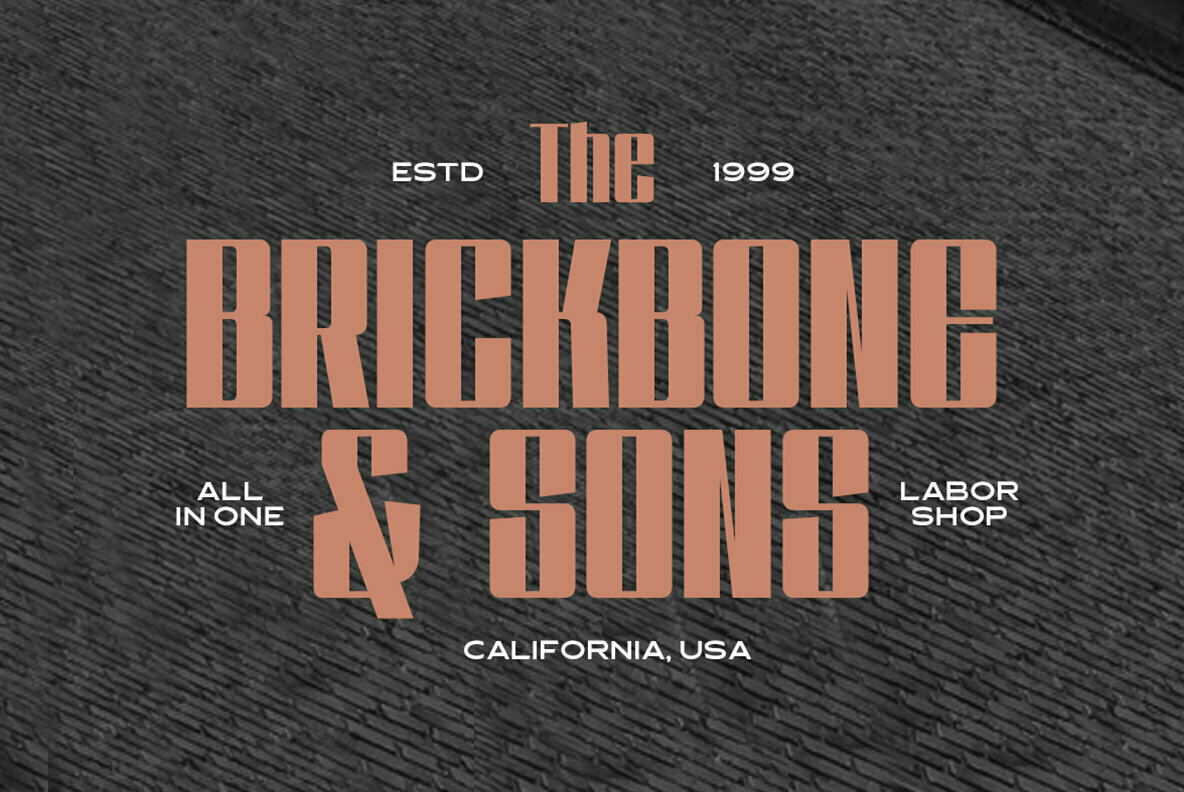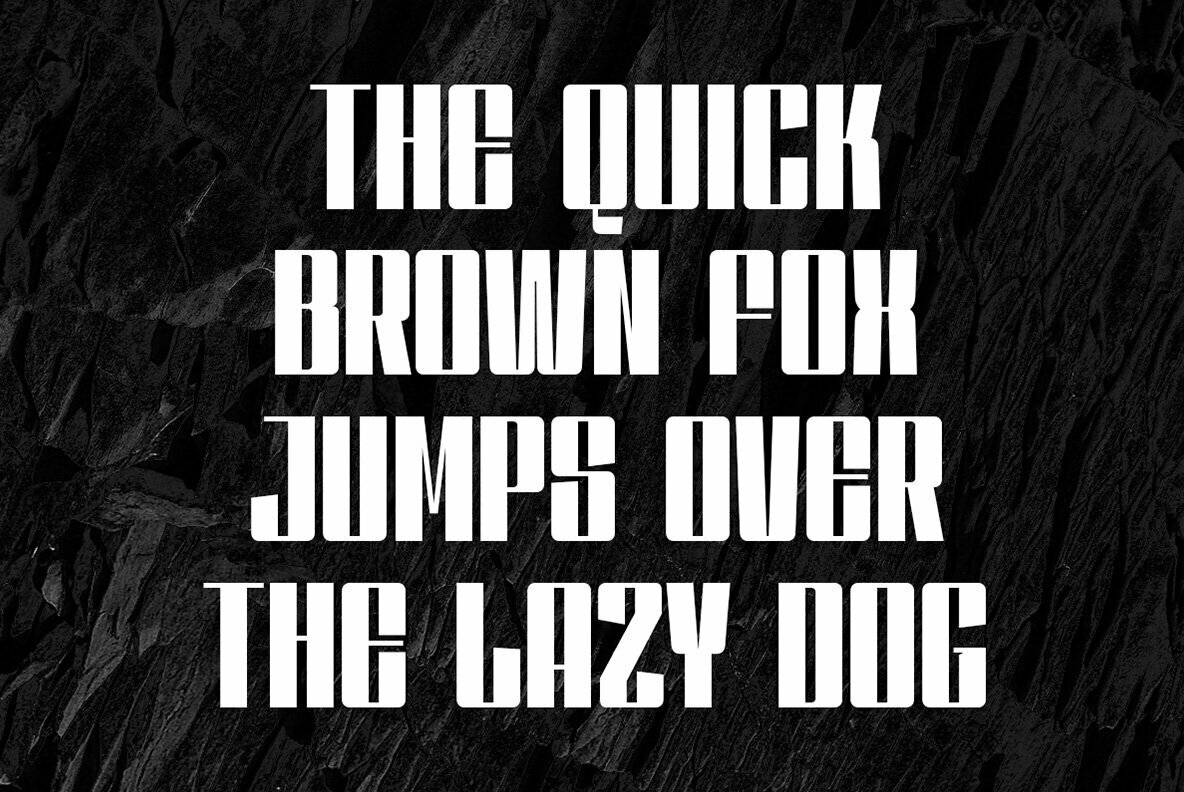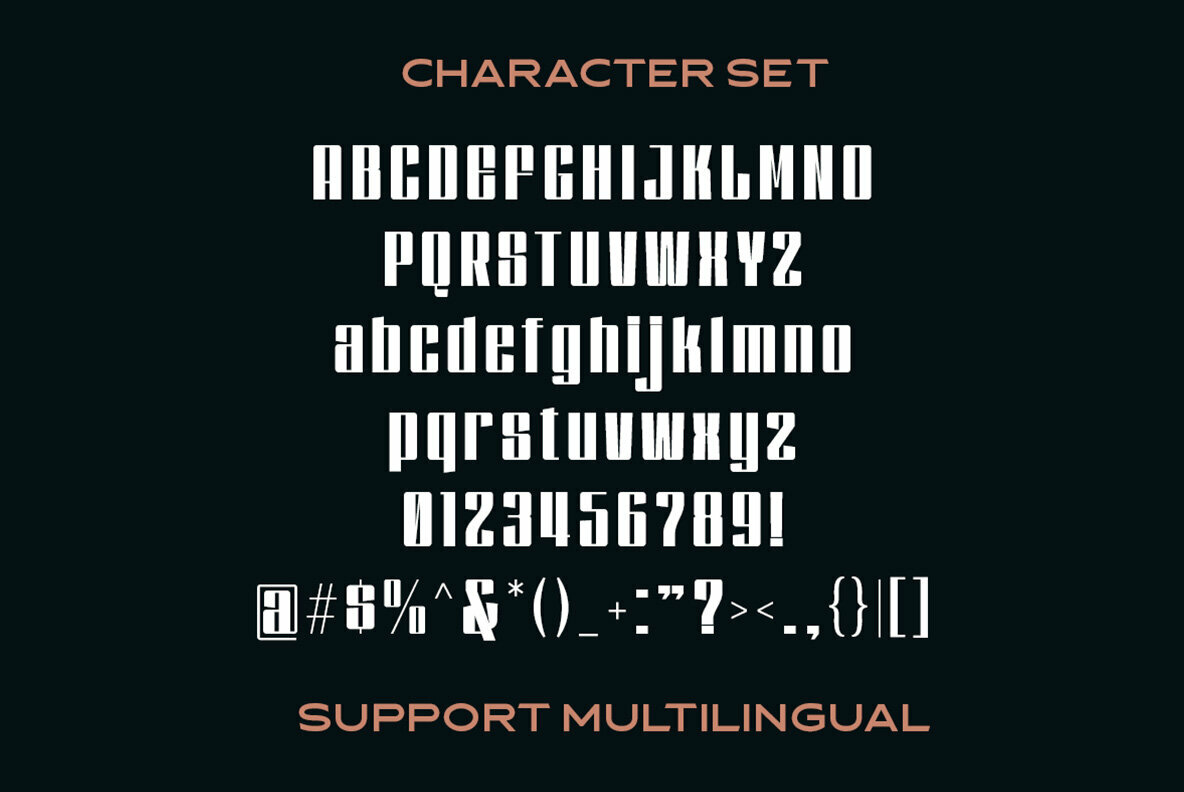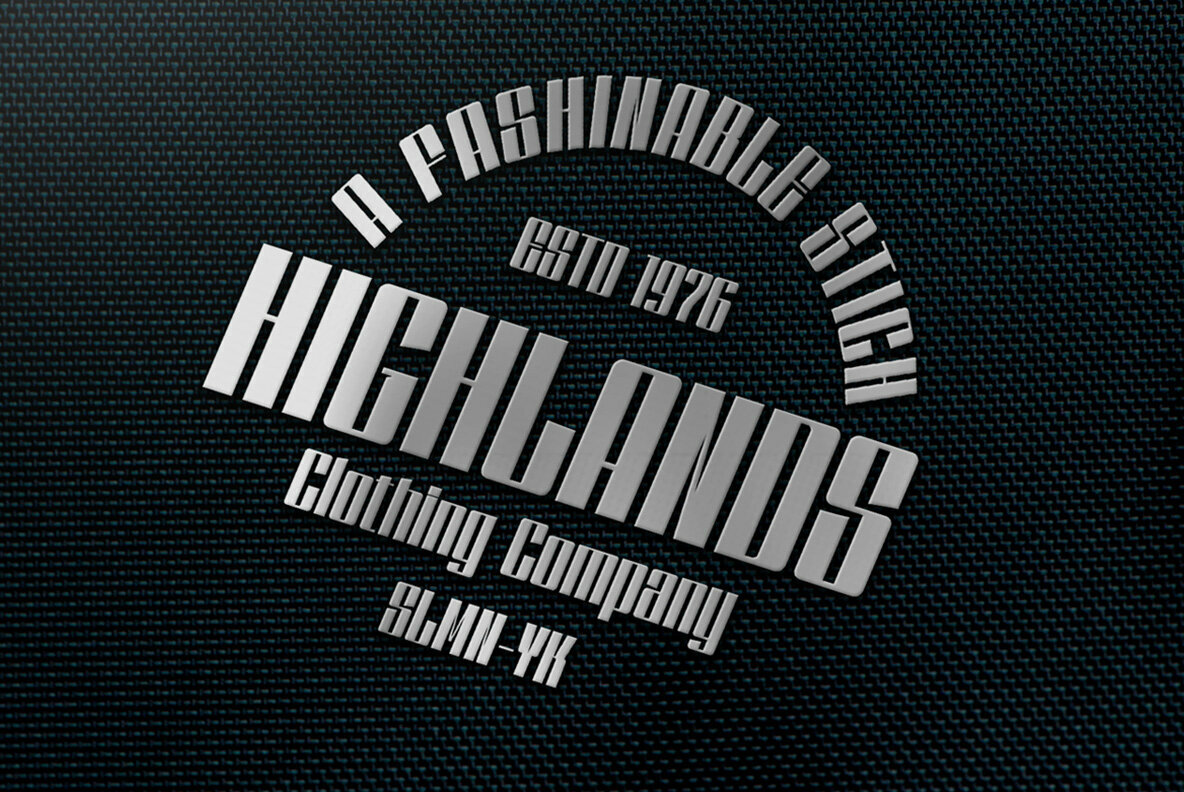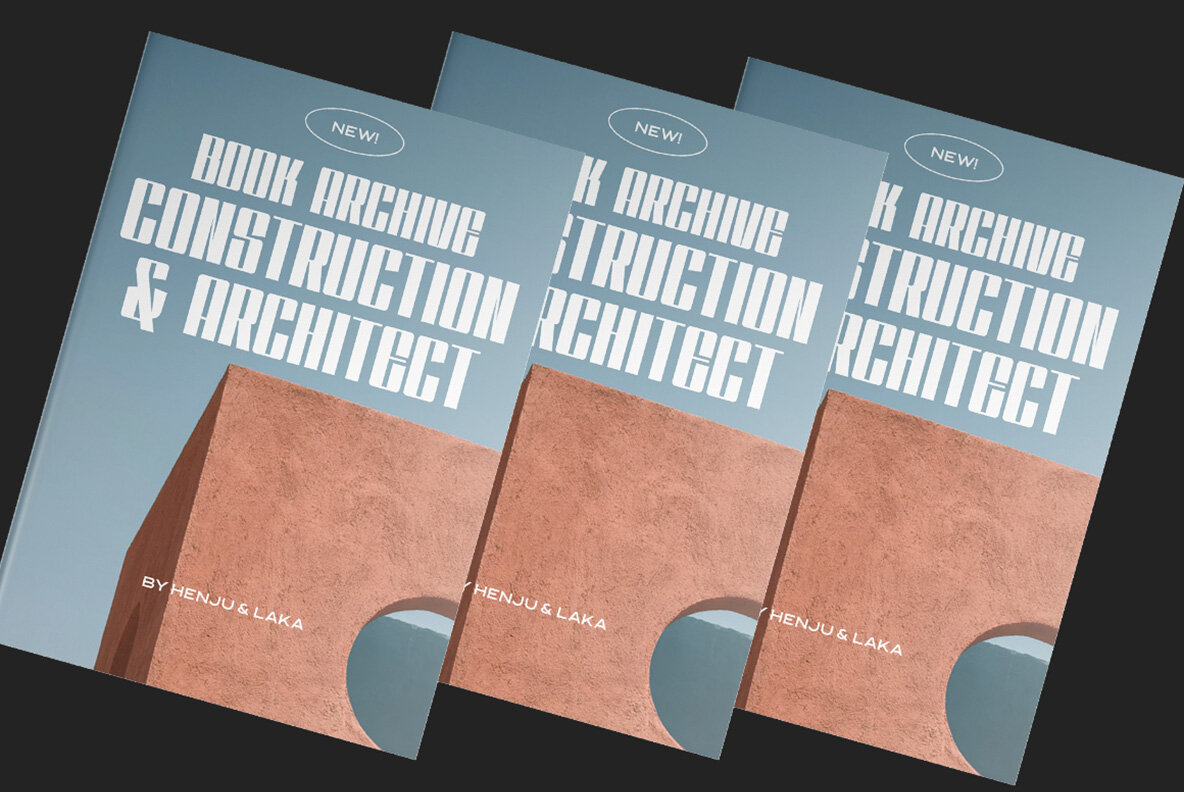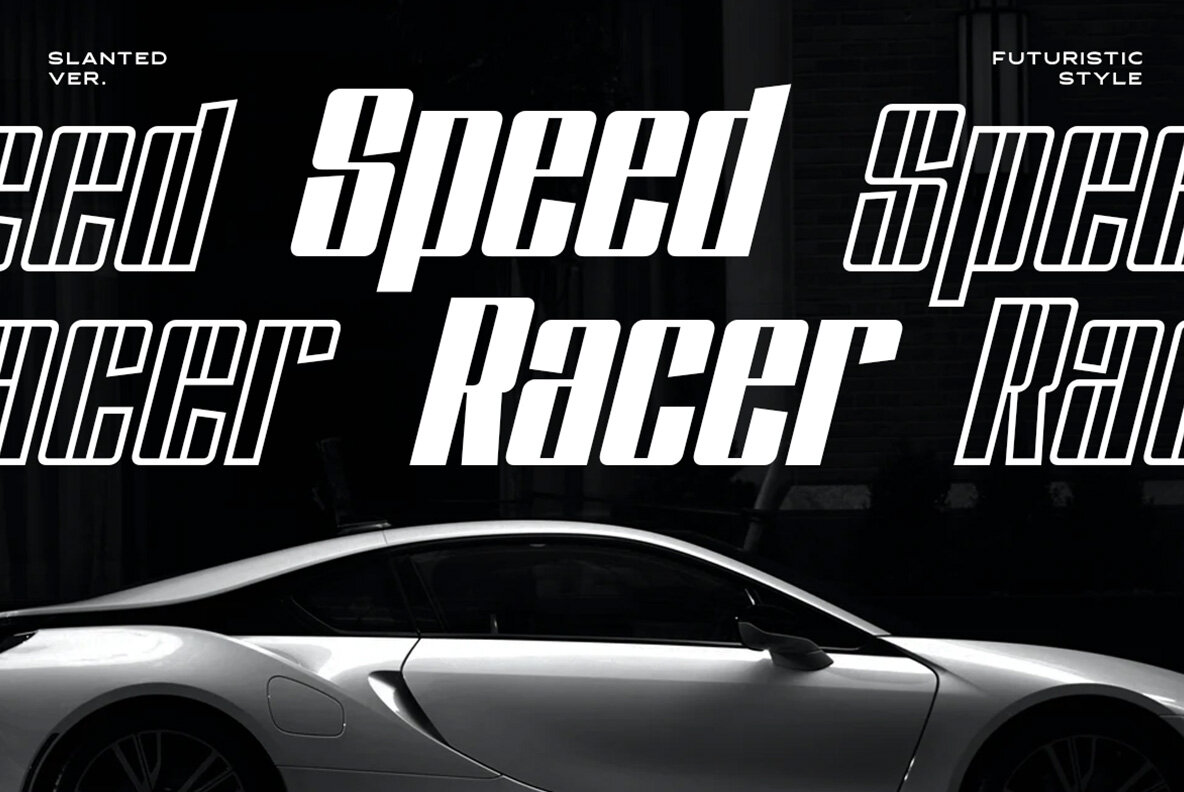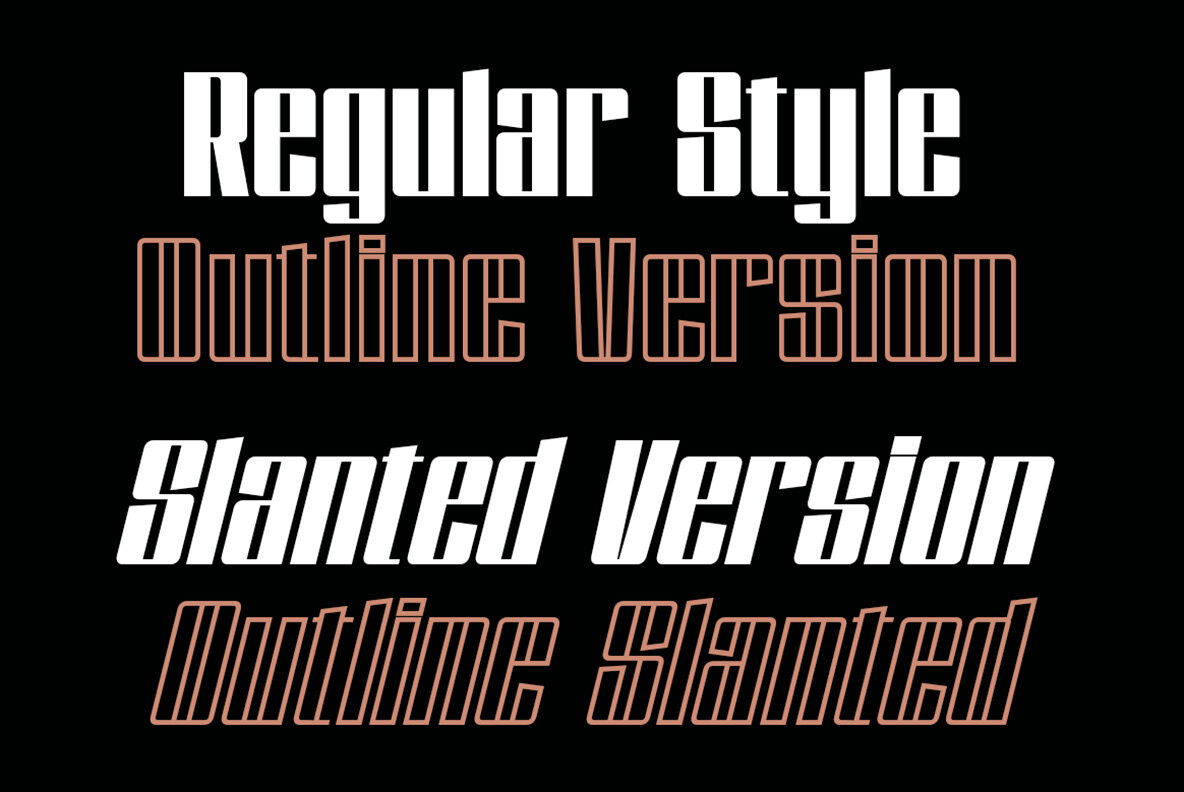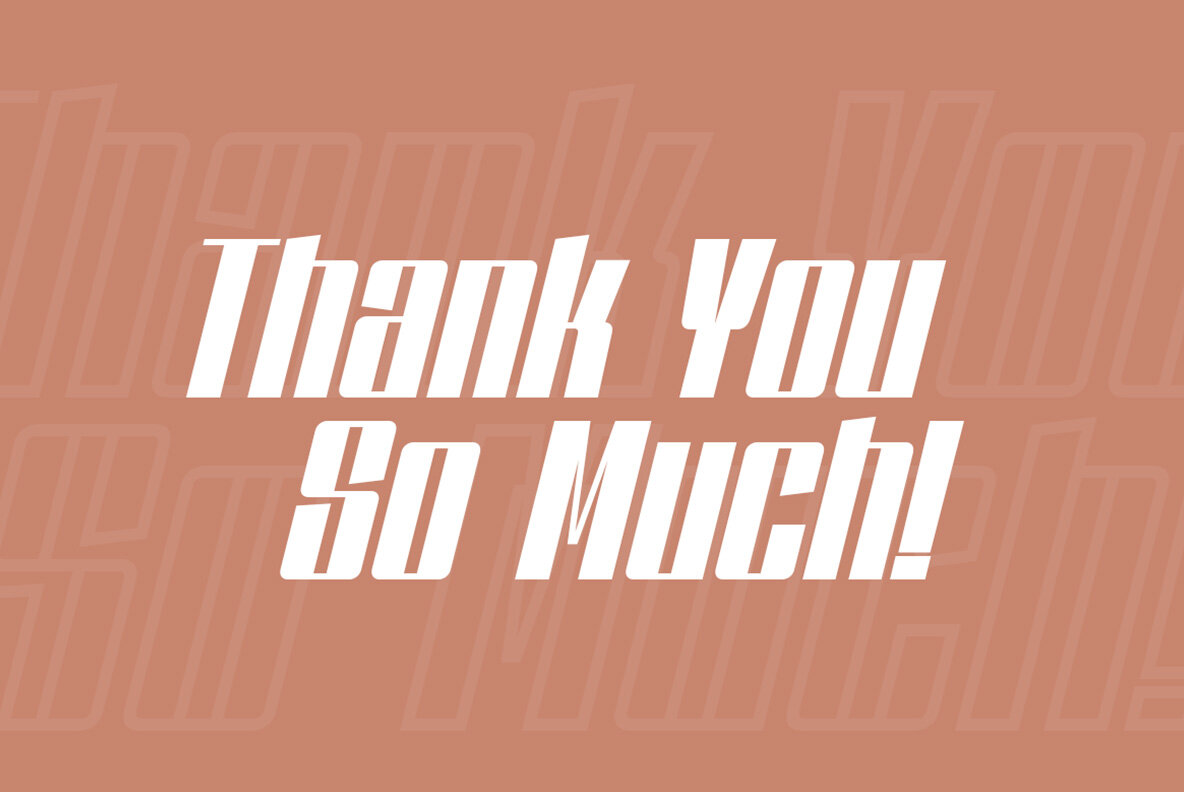
Dankfield Font
Dankfield Regular
Dankfield Outline
Dankfield Outline Slant
Dankfield Slant
Dankfield, by Letterhend Studio, seamlessly blends modernity and high-contrast style in a condensed form. Perfect for projects aiming for a futuristic or tech-oriented look, it thrives in logos, invitations, magazines, and other formal contexts. This typeface is a versatile solution for fashion, makeup, stationery, novels, labels, and advertising needs. For optimal use, employ design programs supporting OpenType features and Glyphs panels, such as Adobe apps and Corel Draw. Accessing the font's full array of possibilities requires these capabilities.Dankfield: A Futuristic Typeface for Modern Design